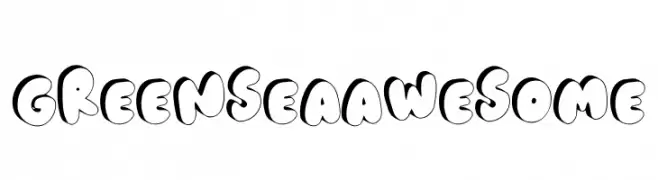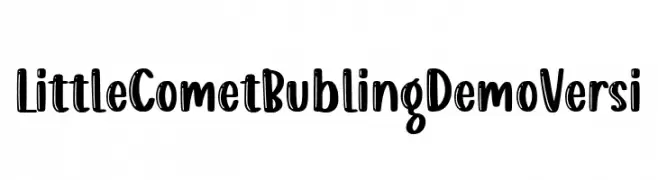
( Fonts by The Docallisme )
A playful, bold font with a bubbly, cartoonish style and 3D shadow effect.
( Fonts by Darrell Flood )
A playful, bold font with rounded, bubbly characters.
( Fonts by Creatype Studio )
A playful, bubbly font with a hand-drawn, whimsical style.
A playful, bold font with rounded, bubbly characters and a friendly appearance.
( Fonts by Brittney Murphy Design )
A bold, playful font with rounded, bubbly characters and a hand-drawn feel.
( Fonts by Lettering Mom )
A playful, bold font with rounded, bubbly characters.
( Fonts by Jetsmax Studio )
A playful, bold, and bubbly font with a rounded, balloon-like design.
( Fonts by Allouse Studio )
A playful, handwritten font with a bubbly and energetic style.
( Fonts by Gartype Studio )
A playful, bold, hand-drawn font with a bubbly, cartoonish style.
A bold, playful font with rounded edges and a bubbly appearance.